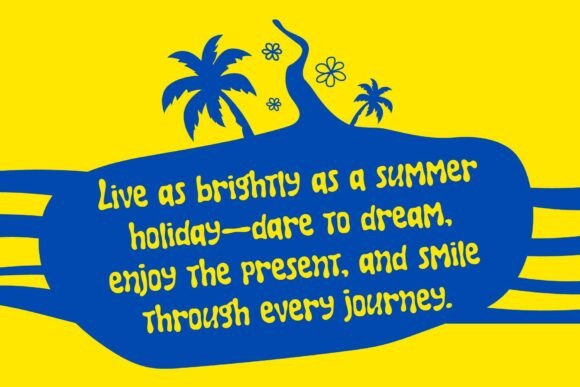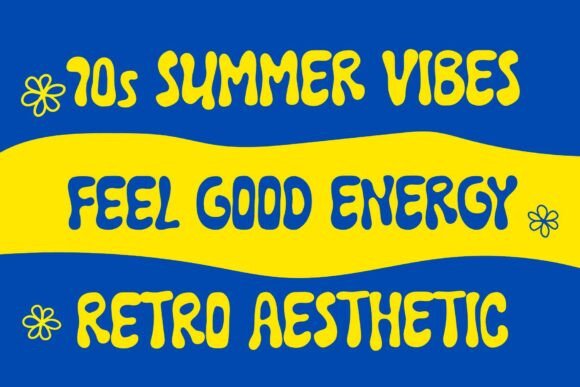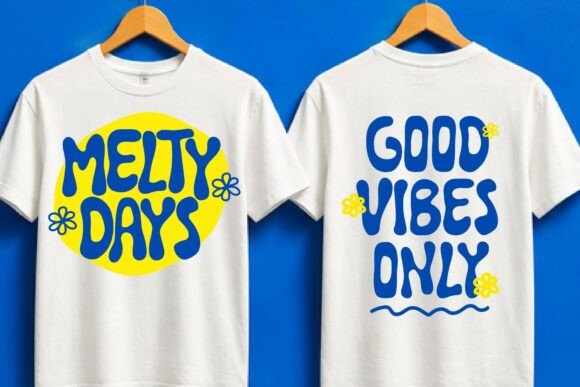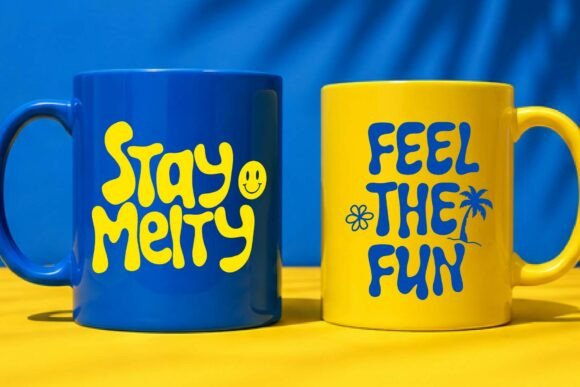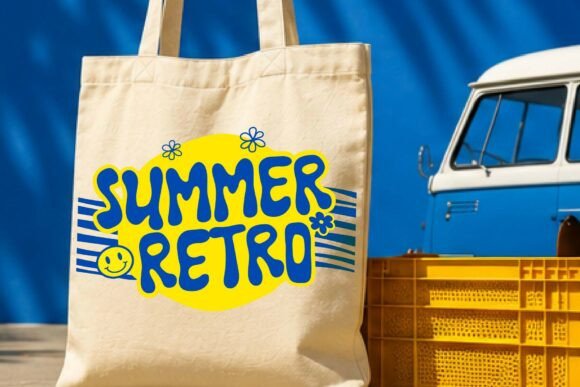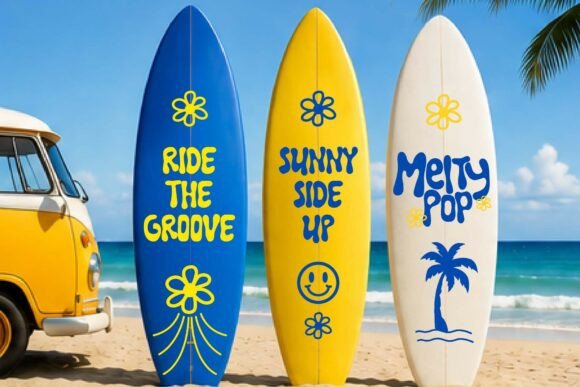
Introduction to Melty Pop Font Font
Fonts play a crucial role in design, and the Melty Pop Font font is a typeface that brings both character and versatility to any project. Whether you’re working on a branding project, a website, or a print design, the Melty Pop Font font offers a unique style that can elevate your work.
MELTY POP is a groovy retro display font inspired by the carefree spirit of the 70s.
Featuring soft melting curves, playful shapes, and bold personality, it brings warmth, fun, and nostalgic summer vibes to any design Perfect for logos, posters, packaging, branding, apparel, social media graphics, and eye-catching headlines.
Key Features of Melty Pop Font Font
Why Choose Melty Pop Font Font?
The Melty Pop Font font is more than just a typeface – it’s a design tool that helps you communicate your message with style and clarity. Its unique character set and versatile design make it suitable for a wide range of applications, from elegant invitations to bold headlines.
With its carefully crafted letterforms and balanced proportions, the Melty Pop Font font ensures readability and visual appeal across all mediums.
What makes Melty Pop Font font special?
The Melty Pop Font font stands out with its unique design, exceptional readability, and versatility across various design applications.